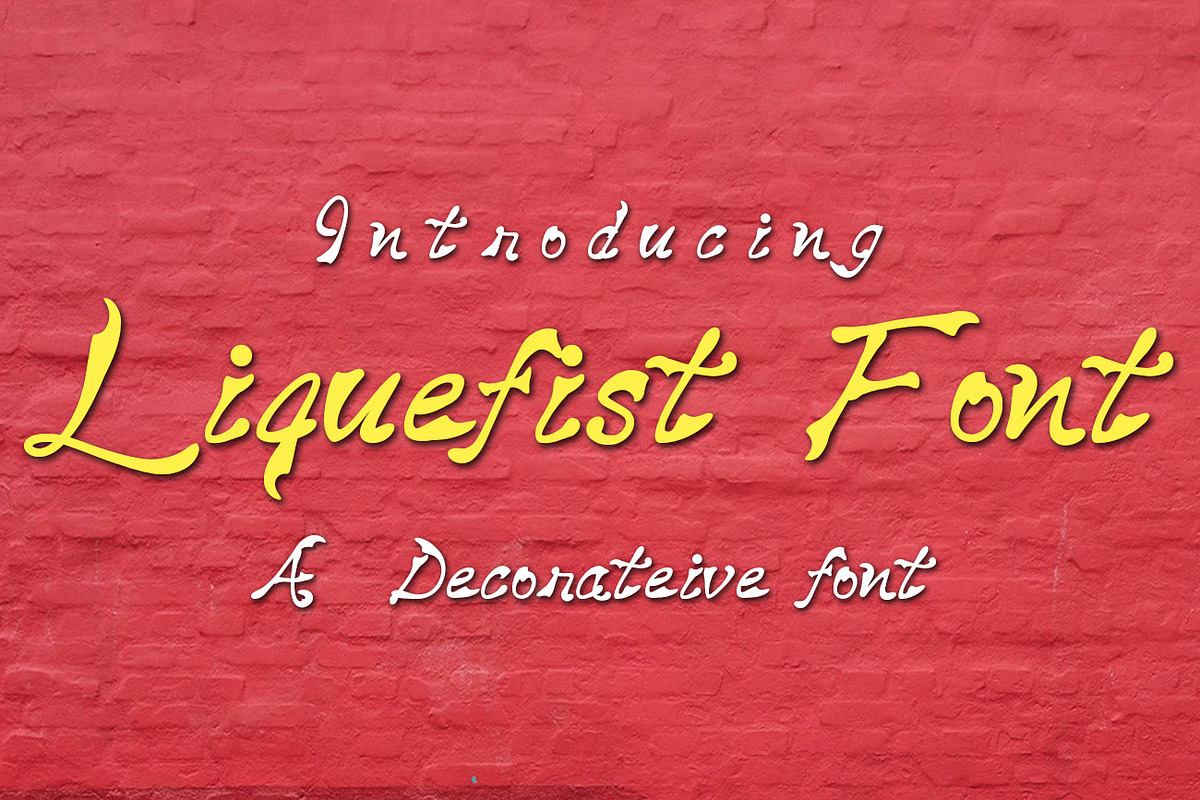
The Liquefist Font Free Download is a bold and unique typeface that offers an edgy, modern look with fluid, distorted letterforms. Perfect for designs that require a dramatic and artistic touch, Liquefist brings a sense of movement and energy to any project. Whether you're designing logos, posters, branding, or music event materials, this font adds a striking and memorable style to your work.
Liquefist Font Free Download is ideal for designers seeking a font with an unconventional and dynamic style. Perfect for projects that require a bold, modern aesthetic, this font will make your designs stand out. Download it today and add an energetic, fluid touch to your creative projects!